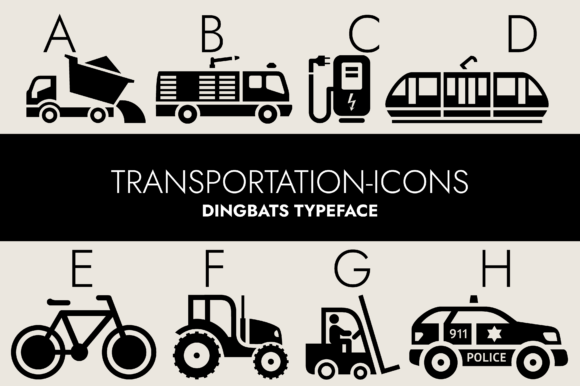
Journey through the realm of visual communication with Transportation Icons Dingbats Font, a remarkable dingbats family that transforms your creative visions into captivating realities. Dive into a world of 62 meticulously crafted icons, ready to ignite your imagination and elevate your designs to new heights.
Unleash your inner artist and effortlessly generate eye-catching car decals that turn heads wherever you go. Let your imagination soar as you adorn your vehicles with sleek and stylish graphics, making a statement on the open road.
Step into the vibrant world of kids' books, where Transportation Icons Dingbats Font brings stories to life. Create enchanting illustrations that capture the hearts and minds of young readers, taking them on thrilling adventures through magical lands. Watch as their eyes light up with wonder as they explore the pages filled with captivating icons.
Embark on educational journeys with school projects that come alive with Transportation Icons Dingbats Font. Craft informative presentations that engage and inspire audiences, leaving a lasting impression. Let the icons speak volumes, conveying complex concepts with clarity and precision.
Whether you're a seasoned designer or just starting your creative journey, Transportation Icons Dingbats Font is your trusted companion. Its user-friendly interface and intuitive design make it accessible to all, empowering you to create stunning visuals without breaking a sweat.
Don't settle for ordinary fonts. Embrace the extraordinary with Transportation Icons Dingbats Font. Transform your creative endeavors into masterpieces that resonate with your audience. Let your designs take flight and leave an indelible mark on the world.